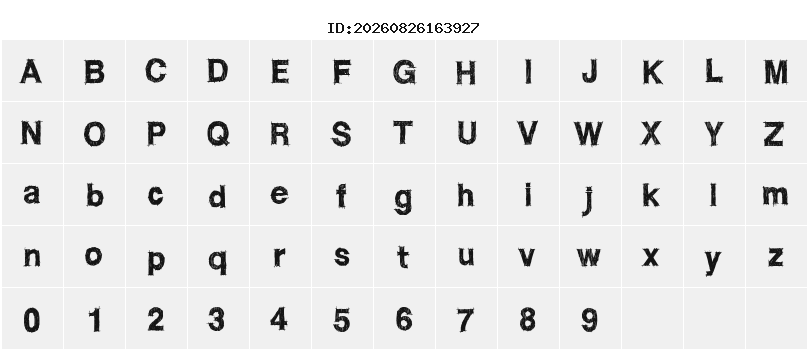
WC ROUGHTRAD Bta Preview
• Font Name: WC ROUGHTRAD Bta
• Full Font Name: WC ROUGHTRAD Bta
About WC ROUGHTRAD Bta.ttf
WC ROUGHTRAD Bta.ttf is a modern, elegant sans-serif font designed for ultimate readability and visual harmony. Perfect for branding, headlines, web design, and print materials.